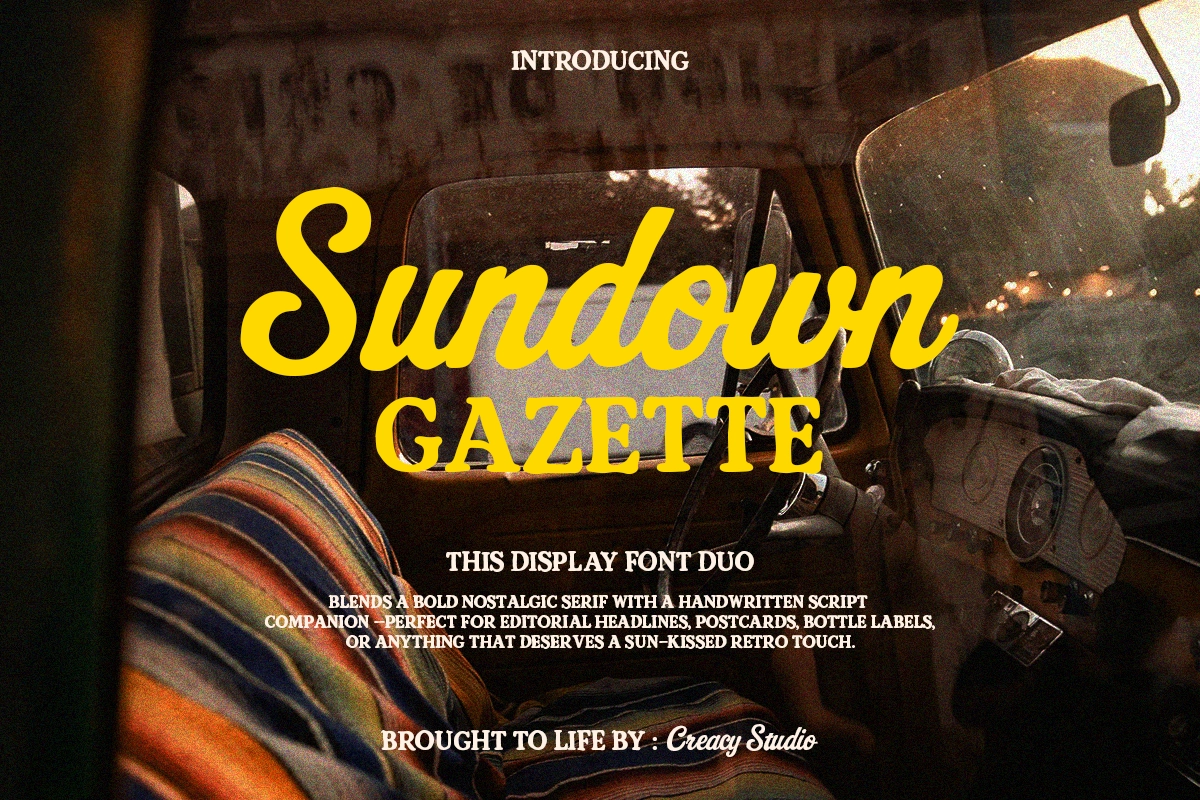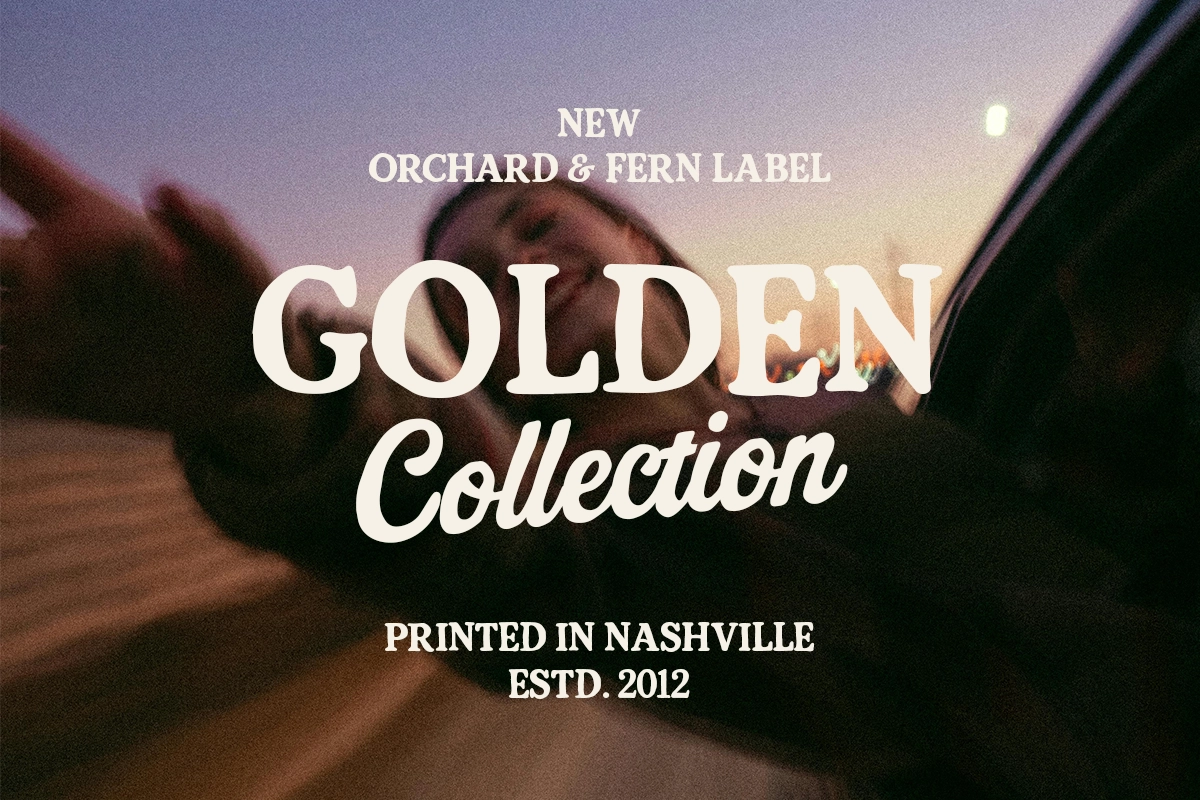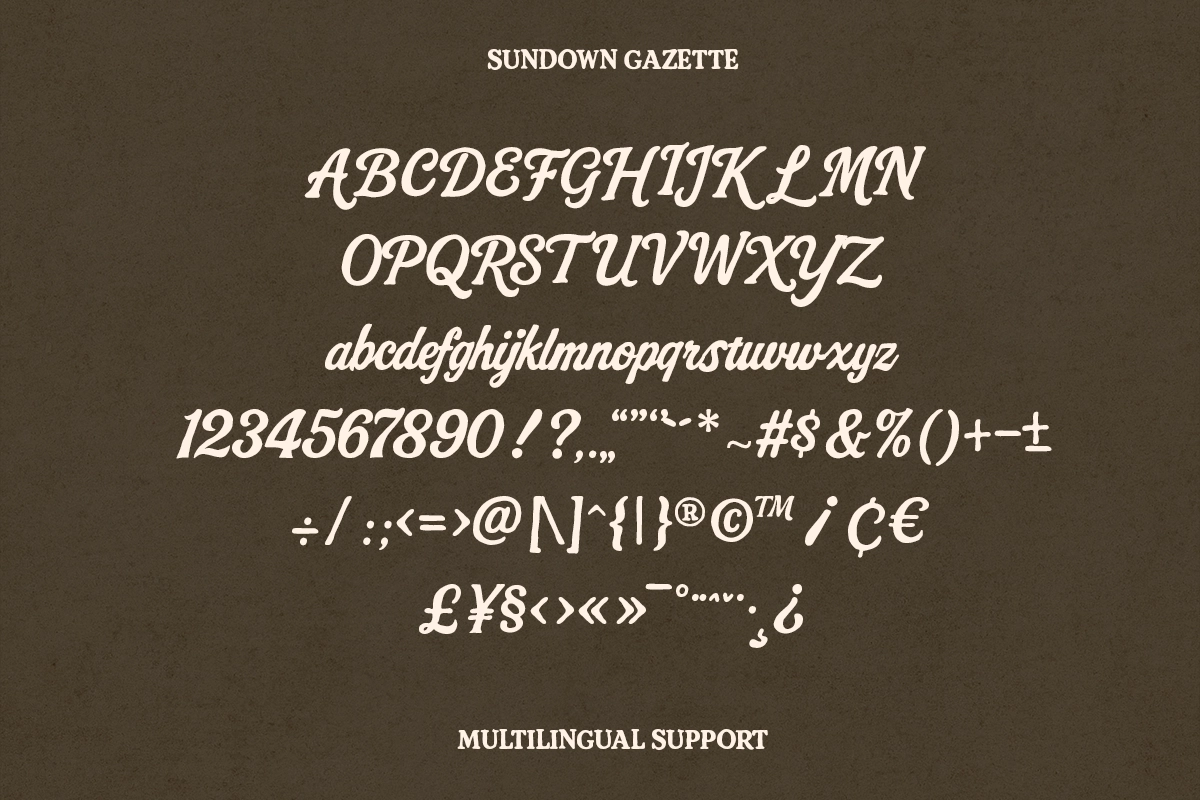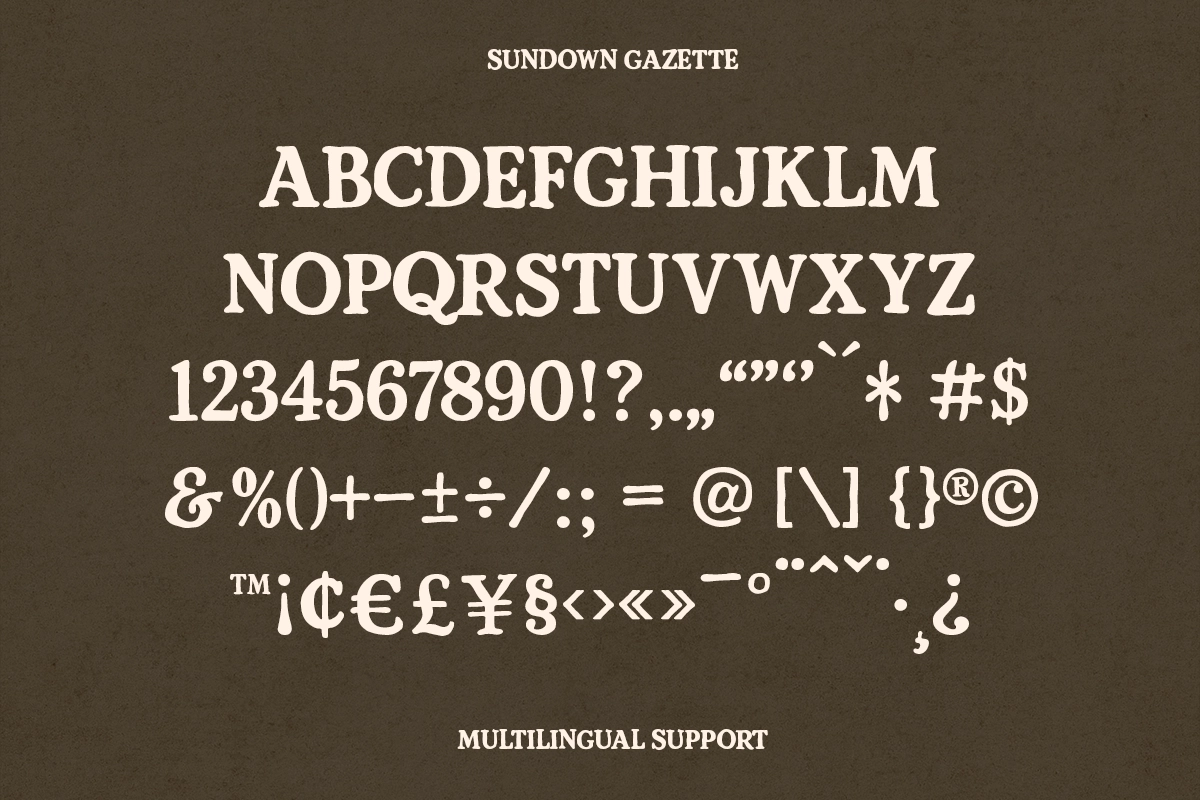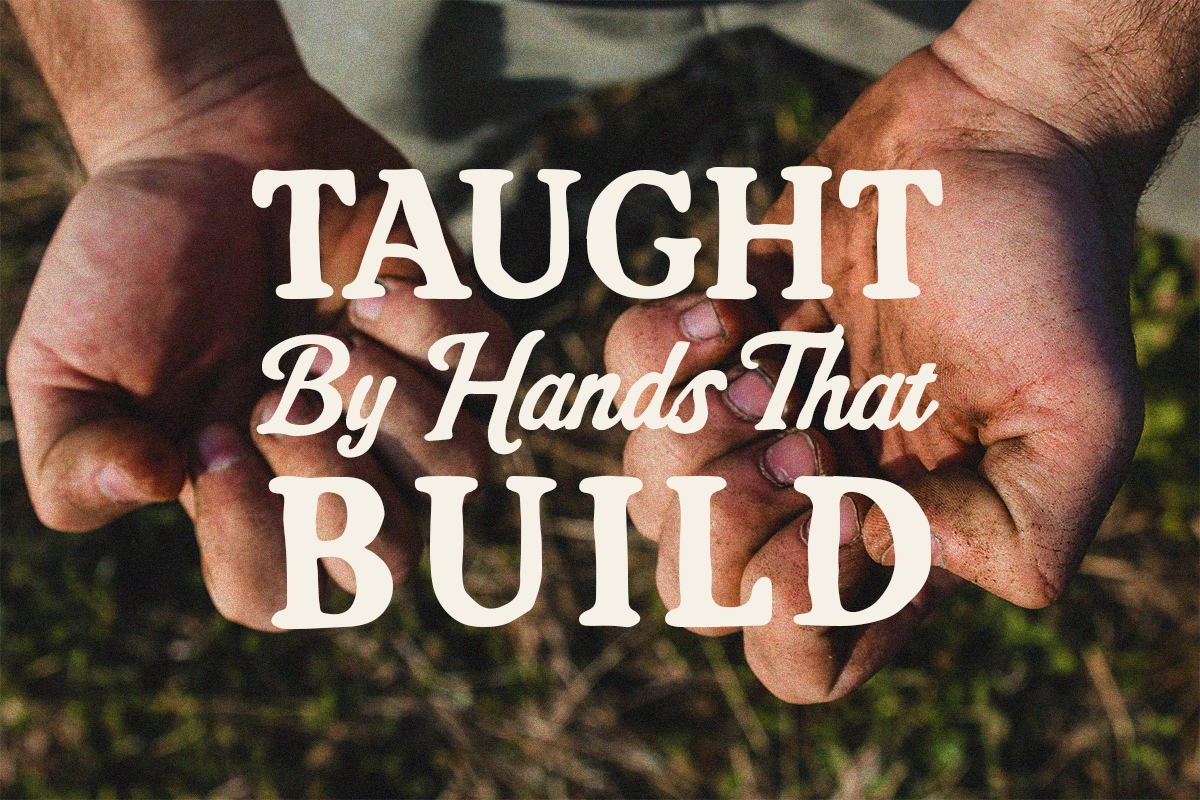
Sundown Gazette – Vintage Display Font
Serif
Step back into a golden era of print with Sundown Gazette, a bold vintage display font inspired by retro newspapers, classic posters, and sun-faded signage.
With its sturdy serifs, nostalgic letterforms, and timeless proportions, Sundown Gazette evokes the warmth of analog craftsmanship — perfect for projects that need a heritage look with modern clarity.
Whether you’re designing for editorial layouts, retro branding, or packaging that tells a story, this typeface brings authenticity and character to every headline.
Perfect For
- Vintage branding & logos
- Editorial headlines
- Retro packaging
- Signage & labels
- Poster designs with heritage vibes
Bring the nostalgia of classic print to your digital canvas with Sundown Gazette — a timeless display font for storytellers and dreamers.